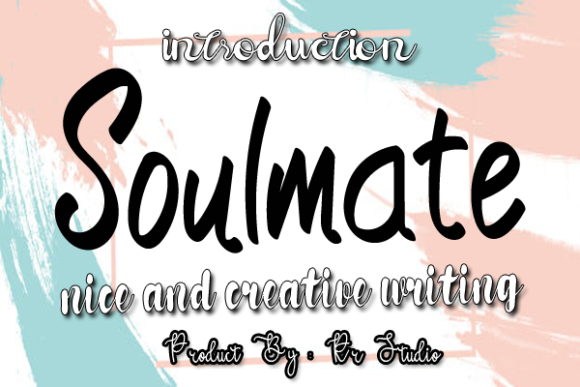
Soulmate Font
About Soulmate Font
Soulmate is an adaptable and graceful script font. Fall for its ravishing style and use it to create gorgeous wedding invitations, beautiful stationary art, eye-catching social media posts, and much more!